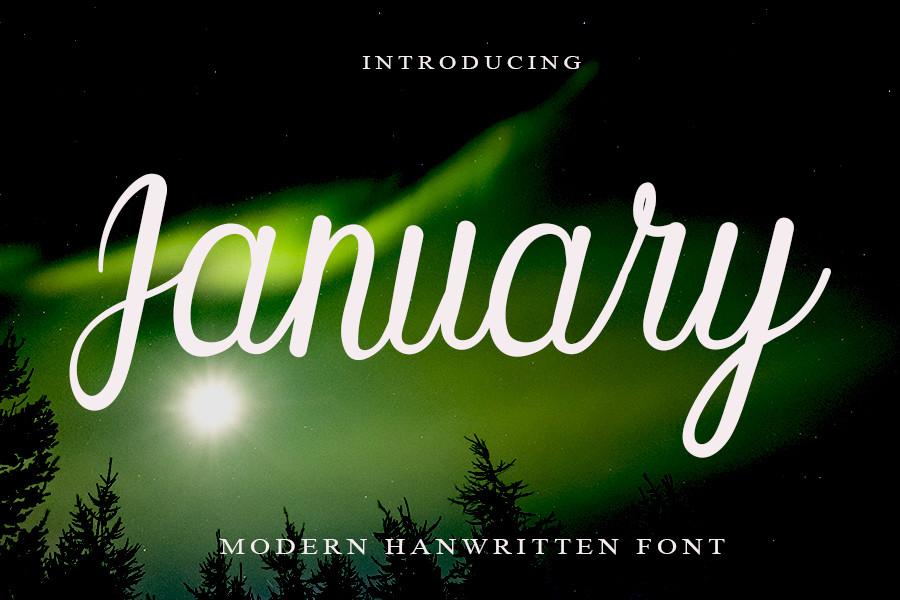
January Font Description
January is an elegant script font with a contemporary atmosphere and impeccable form, inspired by a timeless classic calligraphy. Not too thin and not too thick, balanced and varied, this font was designed to enhance the beauty of your projects.